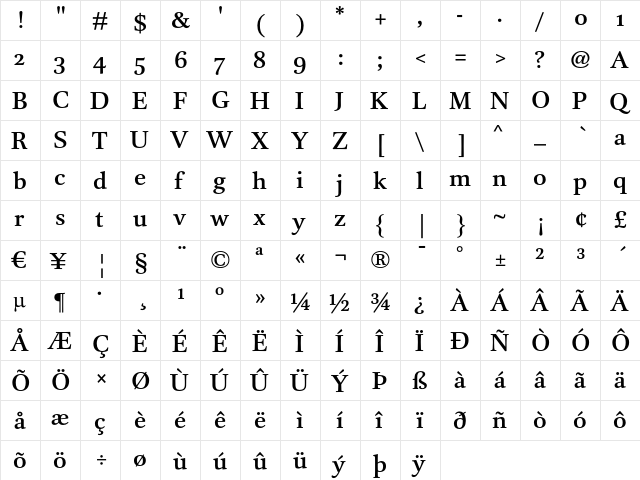
DTLUnicoST Medium Regular
| Foundry | Dutch Type Library |
| Designer | Michael Harvey |
Design Context for DTLUnicoST Medium Typeface
DTLUnicoST Medium offers clean, dependable letterforms without strong stylistic allegiance, making it a practical choice for designers who need flexibility.